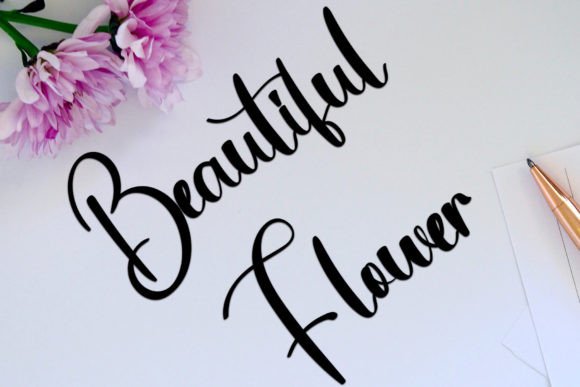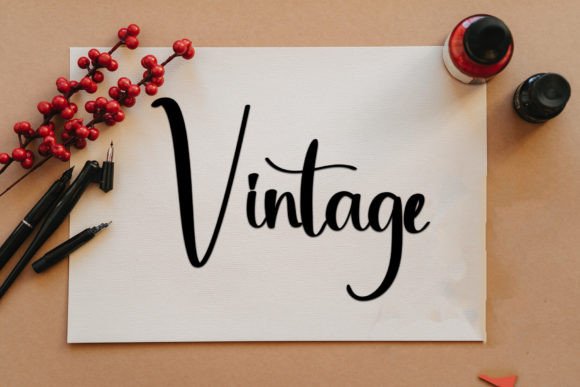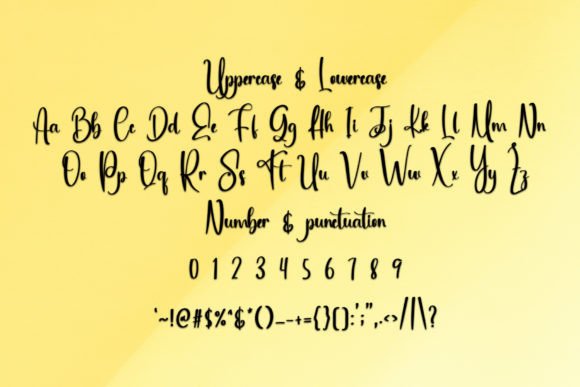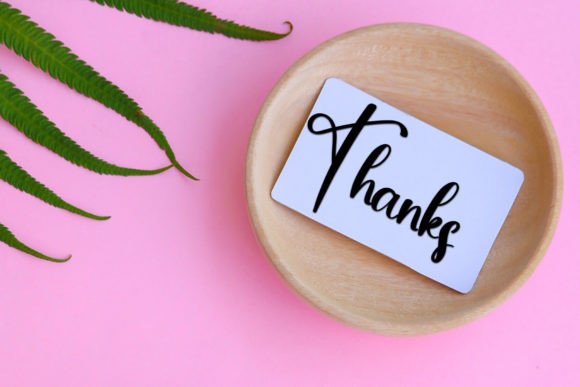
Introducing Endorse Font: Elevate Your Designs with Timeless Elegance
In the world of typography, a font can make or break the aesthetic of a design project. For designers and crafters seeking a stylish and contemporary handwritten font, Endorse Font is an exceptional choice. Inspired by timeless classic calligraphy, Endorse boasts a balanced and varied design, perfect for adding a touch of sophistication to your creations.
The Inspiration Behind Endorse Font
Endorse Font draws its inspiration from the elegance of traditional calligraphy, reimagined with a modern twist. The result is a font that exudes a sense of refinement and poise, making it suitable for a wide range of design applications. Whether you’re working on a branding project, crafting a beautiful stationery set, or creating engaging digital content, Endorse Font is designed to enhance the beauty of your work.
Key Features of Endorse Font
- PUA Encoded: Endorse Font is PUA (Private Use Area) encoded, which means you can easily access all the amazing glyphs and ligatures. This feature allows for greater flexibility and creativity in your designs, making it easier to add unique touches to your projects.
- Contemporary Atmosphere: Despite being inspired by classic calligraphy, Endorse Font has a distinctly contemporary feel. Its clean lines and balanced proportions ensure that it looks fresh and modern, making it perfect for designers who want to create a lasting impression.
- Impeccable Form: The font’s design is characterized by impeccable form, with each letter carefully crafted to contribute to the overall harmony of the text. This attention to detail ensures that Endorse Font looks beautiful in both large and small sizes.
- Balanced and Varied: Endorse Font offers a range of variations, allowing you to add depth and interest to your designs. The balanced nature of the font ensures that it remains legible and aesthetically pleasing, even in longer texts.
Applications of Endorse Font
Endorse Font’s versatility makes it suitable for a variety of design projects. Here are some of the ways you can use this beautiful font:
- Branding and Logotypes: Create a lasting impression with a custom logo or brand identity that leverages the elegance of Endorse Font.
- Stationery and Paper Goods: Add a touch of sophistication to your stationery, greeting cards, and other paper crafts with Endorse Font.
- Digital Content: Use Endorse Font to create engaging and visually appealing digital content, such as blog posts, social media graphics, and email newsletters.
- Packaging and Product Design: Elevate your product design with Endorse Font, perfect for labels, packaging, and other product materials.
Why Choose Endorse Font?
With so many fonts available, why choose Endorse Font for your design projects? Here are a few compelling reasons:
- Unique and Memorable: Endorse Font’s distinctive style ensures that your designs stand out from the crowd, making them more memorable to your audience.
- Time-Saving: The PUA encoding of Endorse Font saves you time by providing easy access to glyphs and ligatures, allowing you to focus on the creative aspects of your project.
- High-Quality Design: Endorse Font is designed to the highest standards, ensuring that it looks beautiful and professional in any context.
Endorse Font is a stylish and versatile handwritten font that brings a touch of timeless elegance to your design projects. Its contemporary atmosphere, impeccable form, and balanced design make it an excellent choice for designers and crafters seeking to elevate their creations. With its PUA encoding and range of applications, Endorse Font is sure to become a staple in your design toolkit.